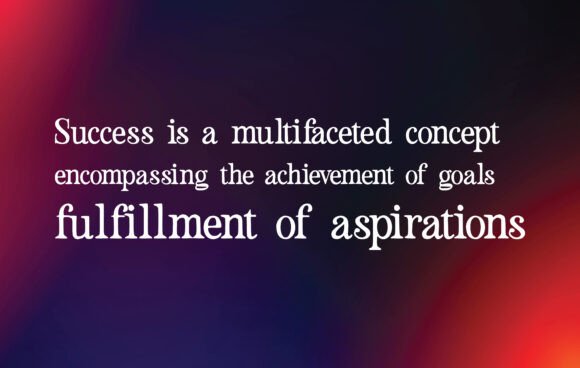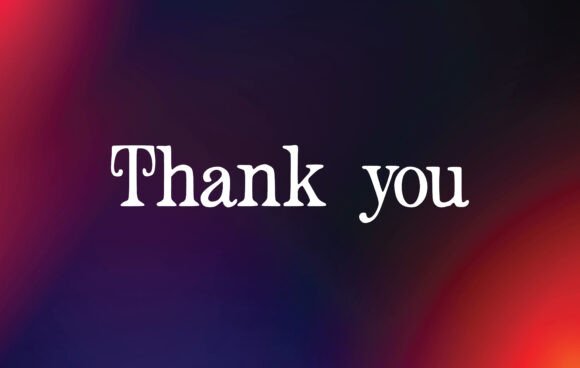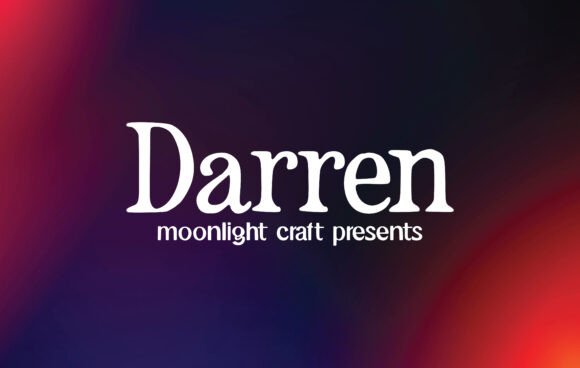
Discover the Creative Potential of Darren Font
Are you a designer or crafter looking for a font that can elevate your creative projects to new heights? Look no further than the Darren Font. This lovely and beautiful font is designed to help you bring your ideas to life, and its versatility makes it the perfect choice for a wide range of applications.
The Perfect Font for Creative Projects
Darren Font is more than just a font – it’s a tool that can help you unlock your full creative potential. With its clean lines, elegant curves, and sophisticated style, this font is perfect for creating eye-catching logos, branding materials, and quotes. Whether you’re working on a personal project or a client’s, Darren Font is the ideal choice for anyone looking to add a touch of elegance and sophistication to their work.
Key Features of Darren Font
- Unique and Creative Design: Darren Font boasts a unique and creative design that sets it apart from other fonts. Its elegant lines and curves make it perfect for creating visually appealing text.
- Highly Versatile: This font is highly versatile and can be used for a wide range of applications, including logos, branding, quotes, and more.
- Easy to Read: Despite its creative design, Darren Font is easy to read, making it perfect for body text and headlines.
- Scalable: This font is highly scalable, meaning it looks great at any size, from small captions to large headlines.
Why Choose Darren Font?
So why choose Darren Font over other fonts? Here are just a few reasons:
- Stand Out from the Crowd: With Darren Font, you can create unique and eye-catching text that sets you apart from the competition.
- Perfect for Branding: This font is perfect for creating branding materials, such as logos, business cards, and letterheads.
- Easy to Pair with Other Fonts: Darren Font pairs well with other fonts, making it easy to create a cohesive look for your project.
- Constantly Updated: The Darren Font is constantly updated with new features and improvements, ensuring you always have access to the latest and greatest.
How to Use Darren Font
Using Darren Font is easy. Here are a few tips to get you started:
- Use it for Headlines: Darren Font is perfect for headlines and titles, where its creative design can really shine.
- Pair it with Other Fonts: Experiment with pairing Darren Font with other fonts to create a unique look for your project.
- Use it for Logos and Branding: This font is perfect for creating logos and branding materials that need to make a statement.
- What is Darren Font?
- Darren Font is a lovely and beautiful font designed to help you bring your creative ideas to life.
- What is Darren Font used for?
- Darren Font can be used for a wide range of applications, including logos, branding, quotes, and more.
- Is Darren Font easy to read?
- Yes, despite its creative design, Darren Font is easy to read, making it perfect for body text and headlines.